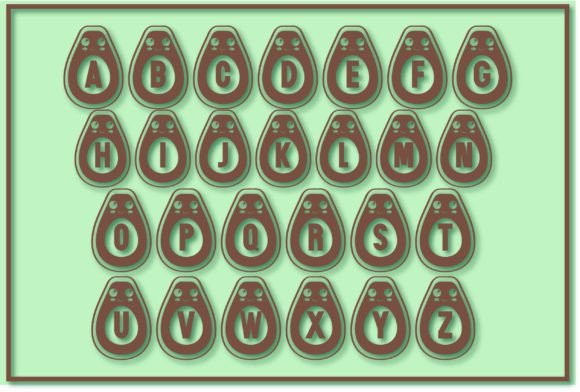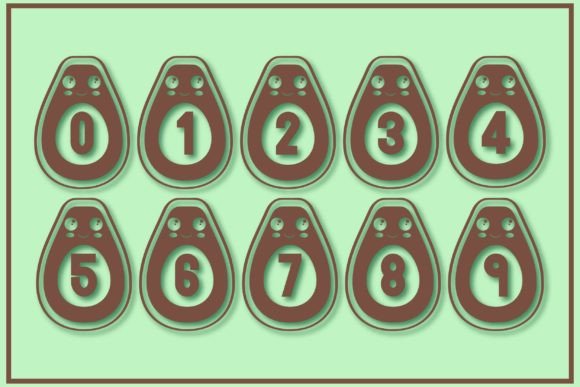
Introducing Avocado Font: The Playful Decorative Font that’s Making a Statement
Are you tired of using the same old fonts for your design projects? Look no further! Avocado Font is here to add a touch of whimsy and fun to your creations. This playful decorative font features adorable avocados that will make your messages super cute and eye-catching. Whether you’re a designer, crafter, or simply someone who loves to get creative, Avocado Font is the perfect addition to your toolkit.
What makes Avocado Font so special?
Avocado Font is a unique and quirky font that’s perfect for adding a personal touch to your designs. The font features illustrations of avocados in various forms, from simple and minimalist to more elaborate and decorative. Each letter and symbol is carefully crafted to resemble an avocado, making it a fun and creative way to express yourself.
Perfect for a variety of projects
Avocado Font is incredibly versatile and can be used for a wide range of projects, including:
- Posters: Add a pop of color and personality to your posters with Avocado Font.
- Greeting cards: Make your greeting cards stand out with cute and playful avocado-themed messages.
- T-shirts: Create fun and quirky designs for t-shirts that are sure to turn heads.
- Branding materials: Use Avocado Font to add a touch of whimsy to your branding materials, such as business cards and brochures.
- Quotes: Add a decorative touch to your quotes and sayings with Avocado Font.
- Any other amazing projects: The possibilities are endless with Avocado Font!
Why designers and crafters love Avocado Font
Avocado Font has quickly become a favorite among designers and crafters, and for good reason. Here are just a few reasons why:
- Unique and eye-catching: Avocado Font is a breath of fresh air in a world of traditional fonts. Its unique and playful design is sure to grab attention and make your designs stand out.
- High-quality illustrations: Each avocado illustration is carefully crafted to ensure high-quality and crisp designs.
- Versatile: Avocado Font can be used for a wide range of projects, from digital designs to print materials.
Tips for using Avocado Font
Here are a few tips for getting the most out of Avocado Font:
- Experiment with different colors: Avocado Font looks great in a variety of colors, so don’t be afraid to experiment and find the perfect hue for your design.
- Mix and match: Combine Avocado Font with other fonts and design elements to create a unique and eye-catching design.
- Keep it simple: Don’t be afraid to keep things simple and use Avocado Font on its own. The font is designed to be beautiful on its own, so let it shine!
Avocado Font is a playful and decorative font that’s perfect for designers, crafters, and anyone who loves to get creative. With its unique and eye-catching design, Avocado Font is sure to add a touch of whimsy and fun to your designs. Whether you’re working on a poster, greeting card, t-shirt, or any other project, Avocado Font is the perfect choice. So why wait? Download Avocado Font today and start creating amazing designs that are sure to impress!